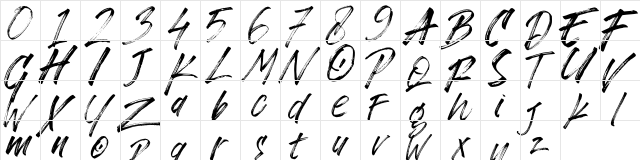
Zingakon Regular
Design Context for Zingakon Typeface
Zingakon is a composed and adaptable typeface that performs quietly and consistently across a wide range of design contexts.